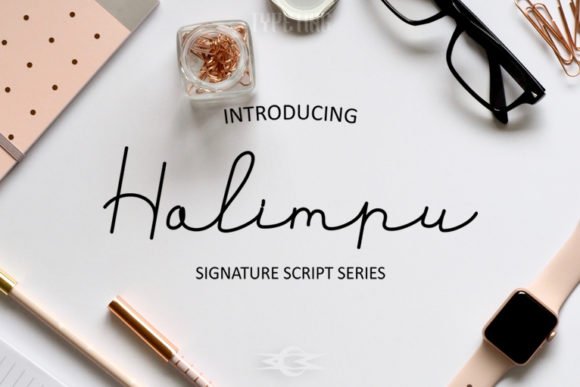
Unleashing the Melody of Halimpu Font
Have you ever stumbled upon a song that instantly captures your mood and inspires your creativity? For many designers, music is a constant source of inspiration, and it’s not uncommon to find themselves humming a tune while brainstorming ideas. The Halimpu Font was born out of this same creative spirit, where the beauty of music meets the art of typography.
This natural signature font, named after the Sundanese word for “melodious,” was designed to evoke the feeling of a song that resonates with you. With its unique, handwritten touch, the Halimpu Font is perfect for designers looking to add a personal and emotive element to their work. Whether you’re working on a branding project, a social media campaign, or a simple design, the Halimpu Font is sure to bring a touch of warmth and character to your creations.
Halimpu Font Key Features
- Font Family: Halimpu is a unique, handwritten font with a personal touch, making it perfect for creative and artistic projects.
- Unique Characteristics: The font features a mix of modern and vintage elements, with unique letterforms and flourishes that add a touch of personality to any design.
Halimpu Font Review
As a designer, I was excited to dive into the Halimpu Font and see what it had to offer. Here’s my honest review:
- Unique Character: The Halimpu Font has a distinct and quirky character that can add a lot of personality to your designs.
- Legibility: Despite its bold and playful nature, the font is surprisingly legible, making it a great choice for body text and headlines.
- Cultural Significance: The font is inspired by indigenous Latin American writing systems, making it a great choice for designers looking to add a touch of cultural authenticity to their work.
- Limited Font Weight Options: While the font has a range of styles, the weight options are somewhat limited, which may not be ideal for designers who need a lot of flexibility.
- Not Ideal for Small Text: The font’s bold and playful nature can make it difficult to read at small sizes, which may limit its use for designers who need to use it for body text.
Overall, I think the Halimpu Font is a great choice for designers who want to add a unique touch to their work. While it has some limitations, its unique character and cultural significance make it a standout font in the world of typography.
Halimpu Font: A Practical Application Guide
Tips for Getting the Most Out of Halimpu Font
Halimpu Font is ideal for creative and artistic designs. To get the most out of it, try using it in combination with bold lines and bright colors.
Halimpu Font is commonly used in:
– Artistic posters and prints
– Handmade stationery and greeting cards
– Unique and creative social media graphics